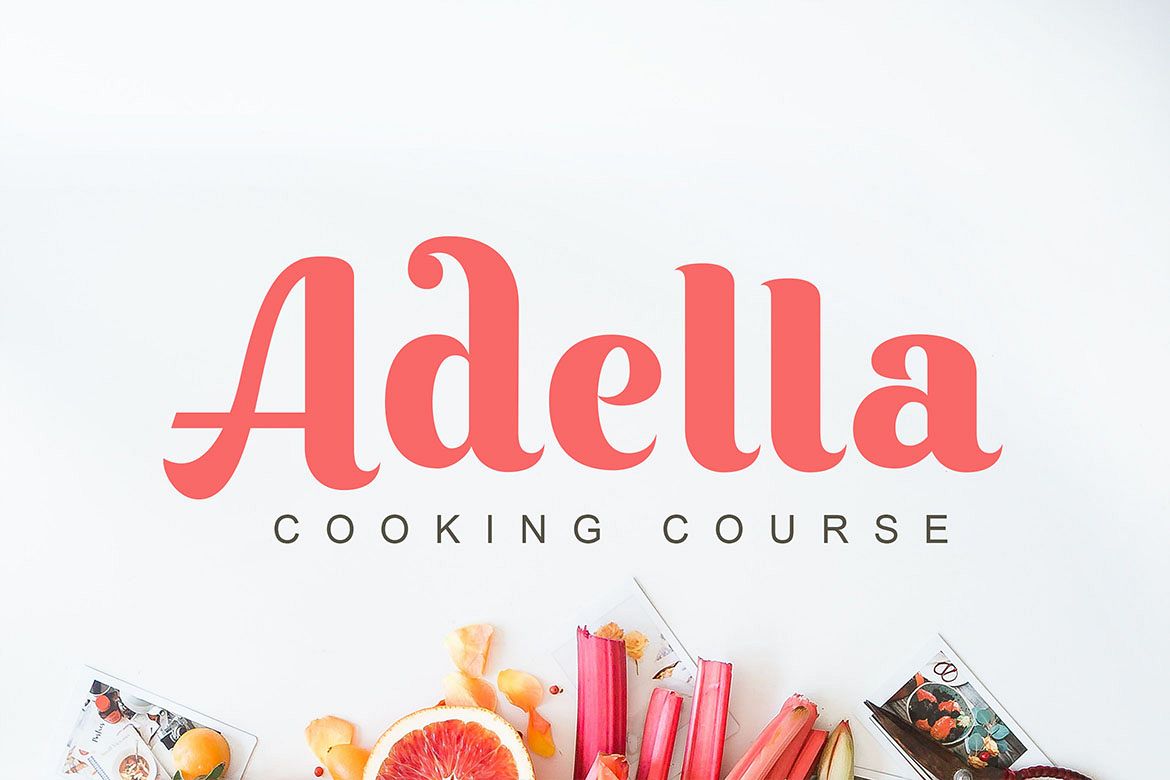
Keilla - Clean Display Font
Keilla font is   Clean display font, it is simple and eye catching, perfect for  designed for use in logo, magazine, product, poster, and many more.
Keilla comes with opentype feature like swash, stylistic alternates, stylistic set , and ligatures.